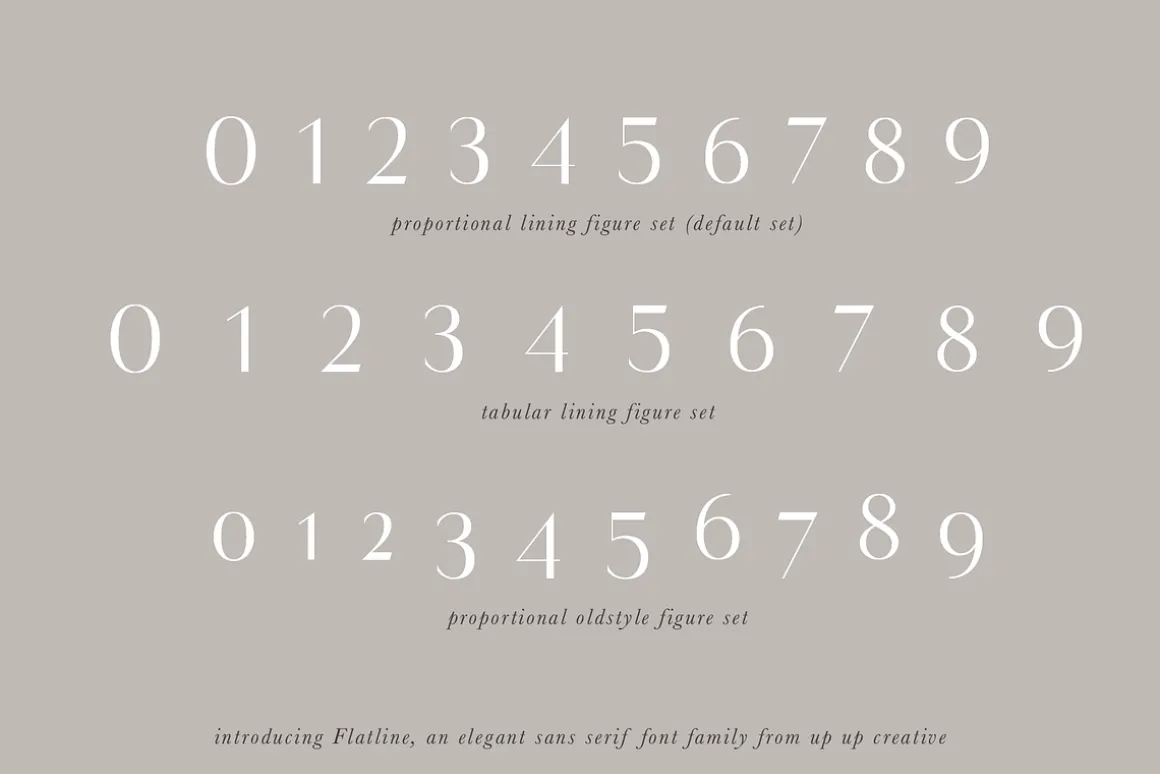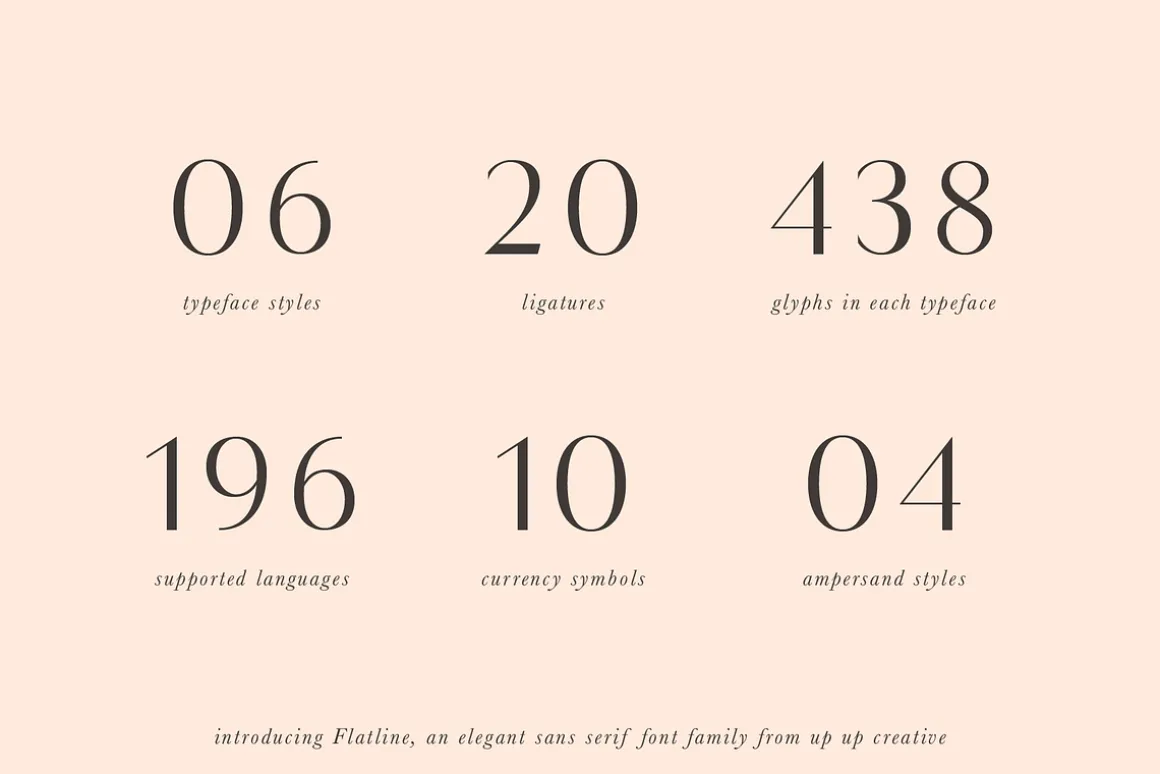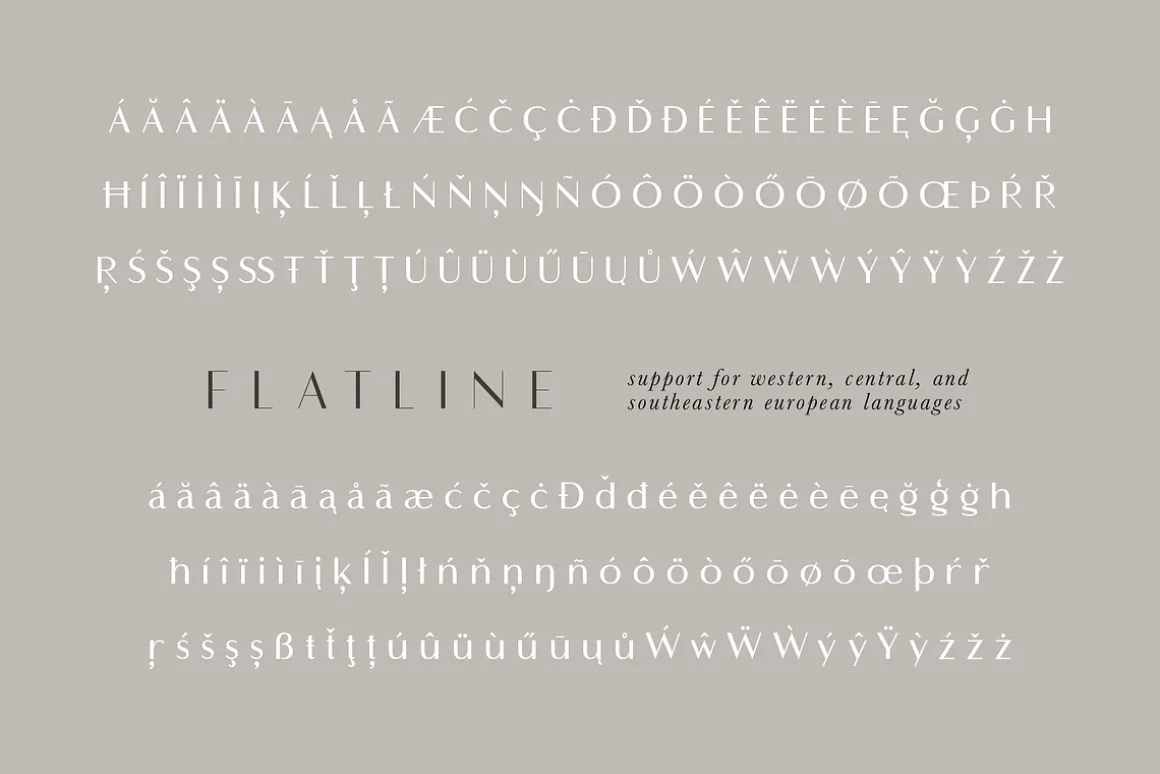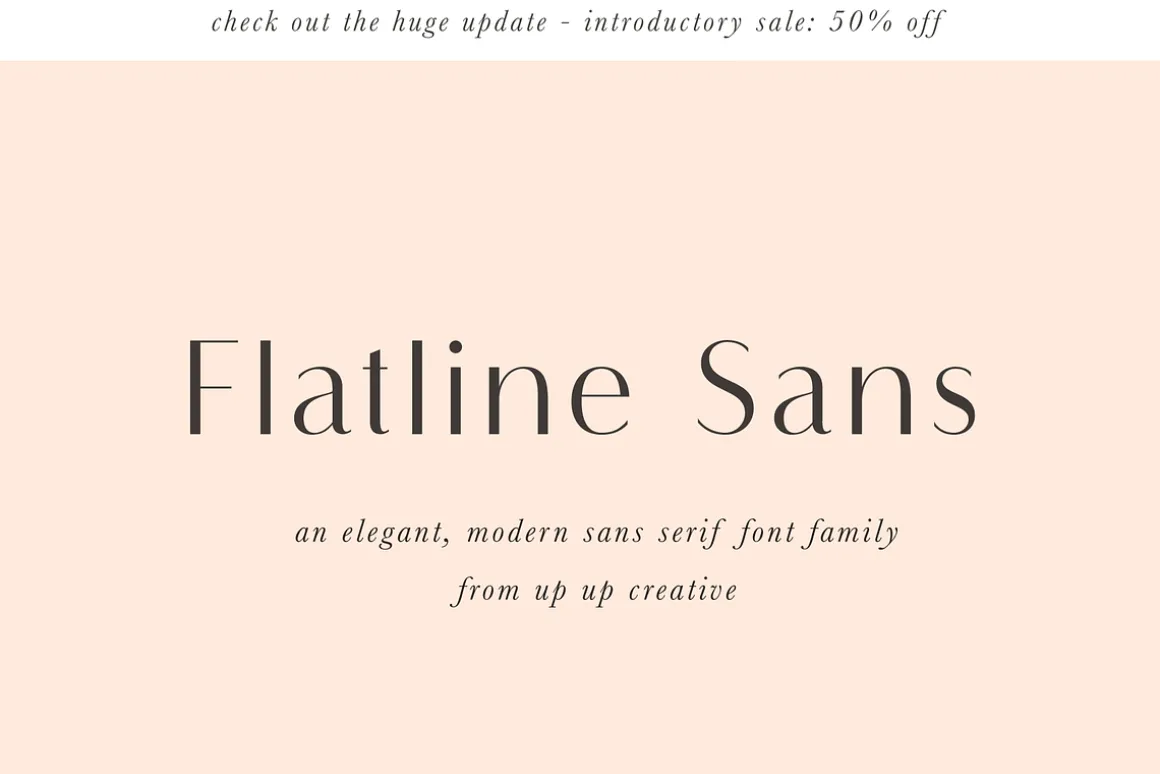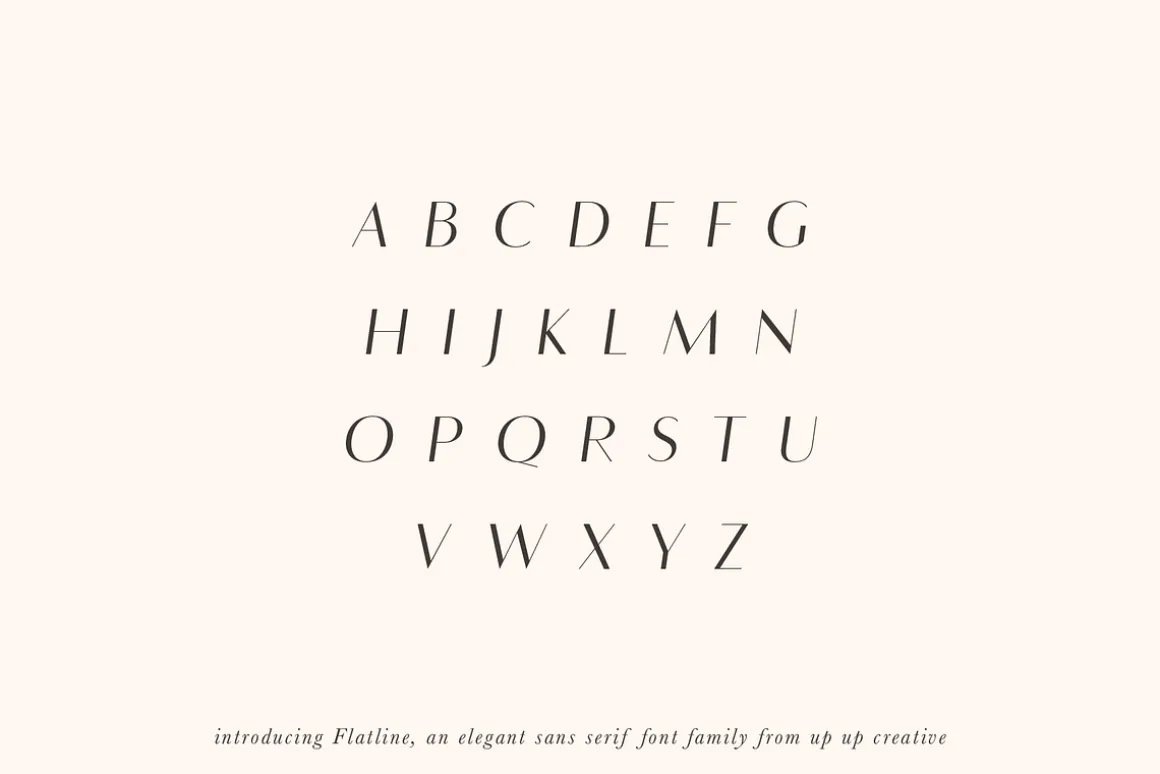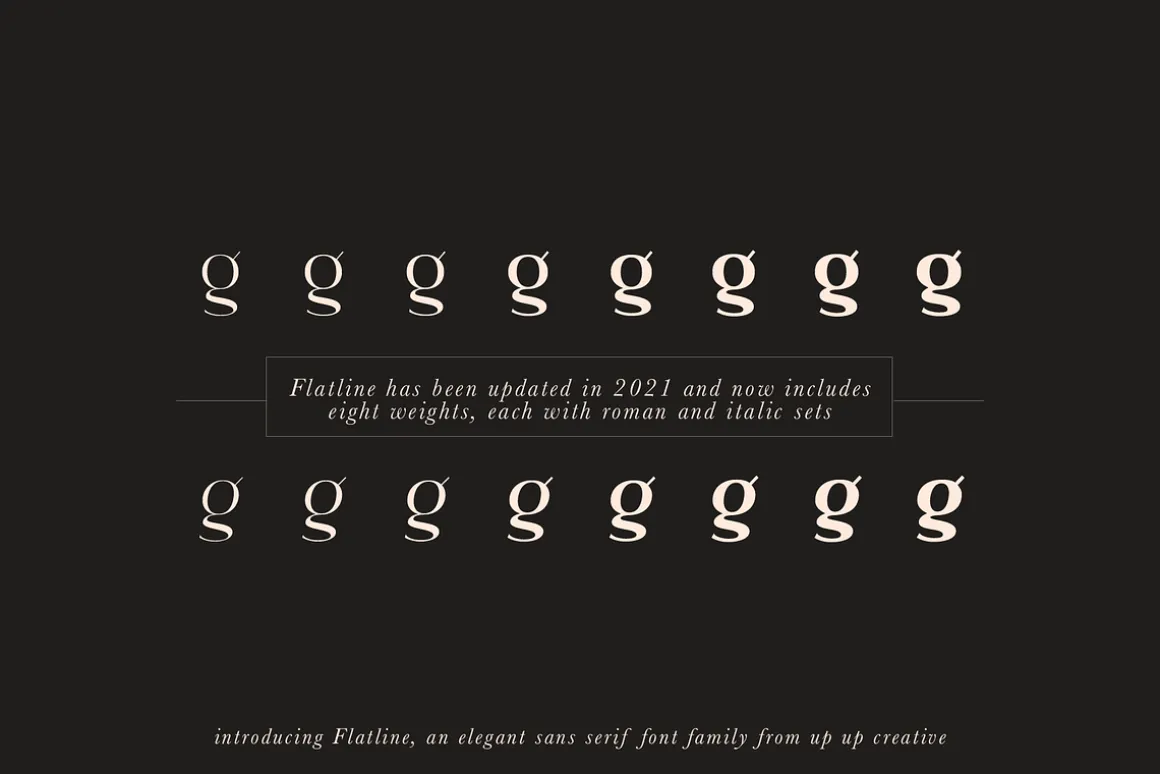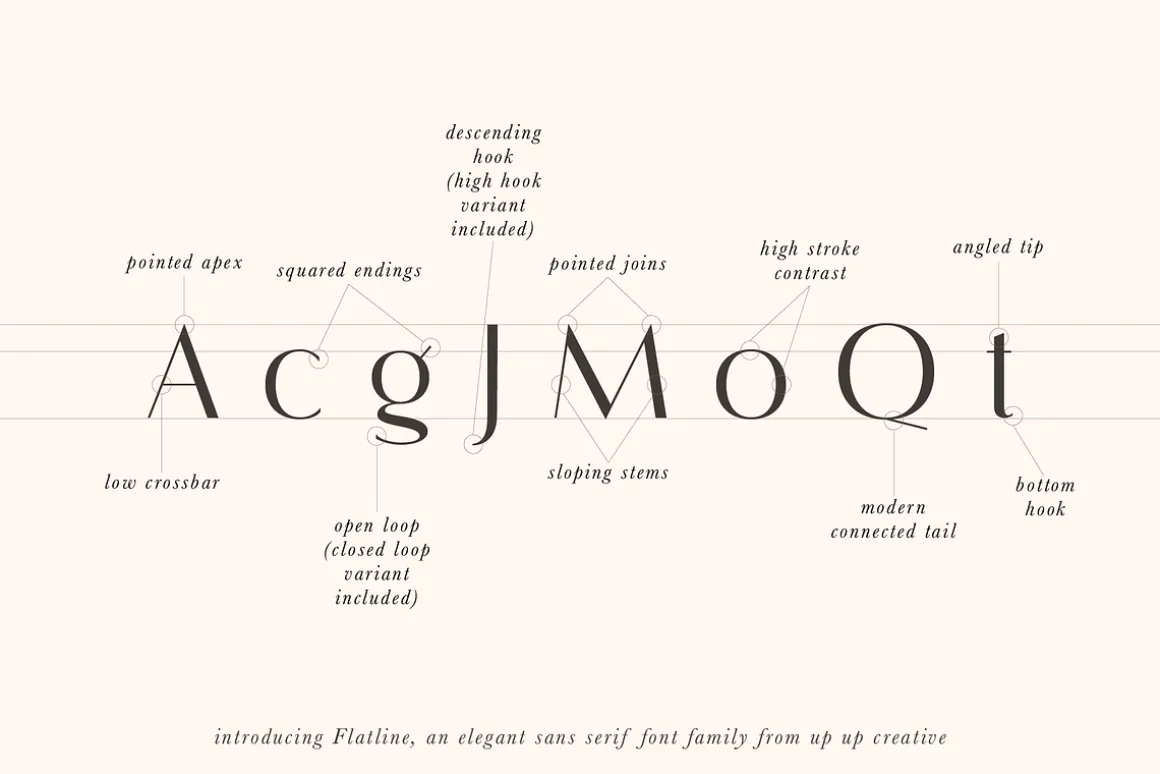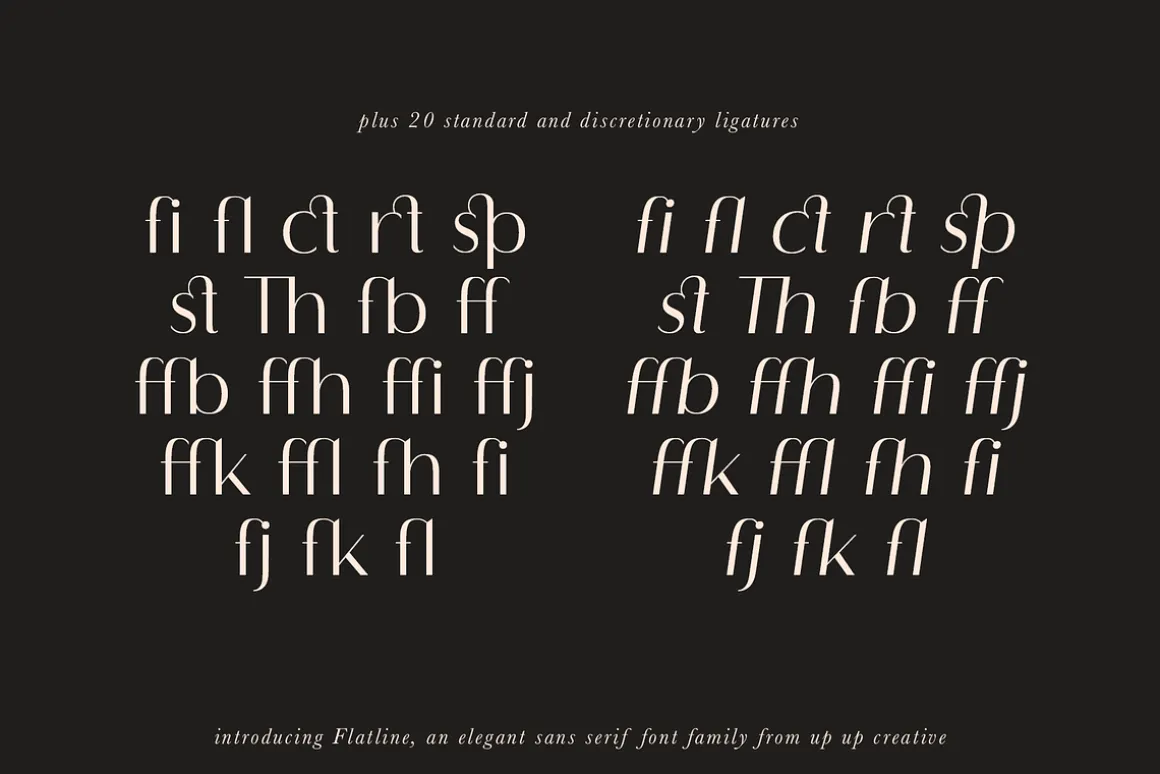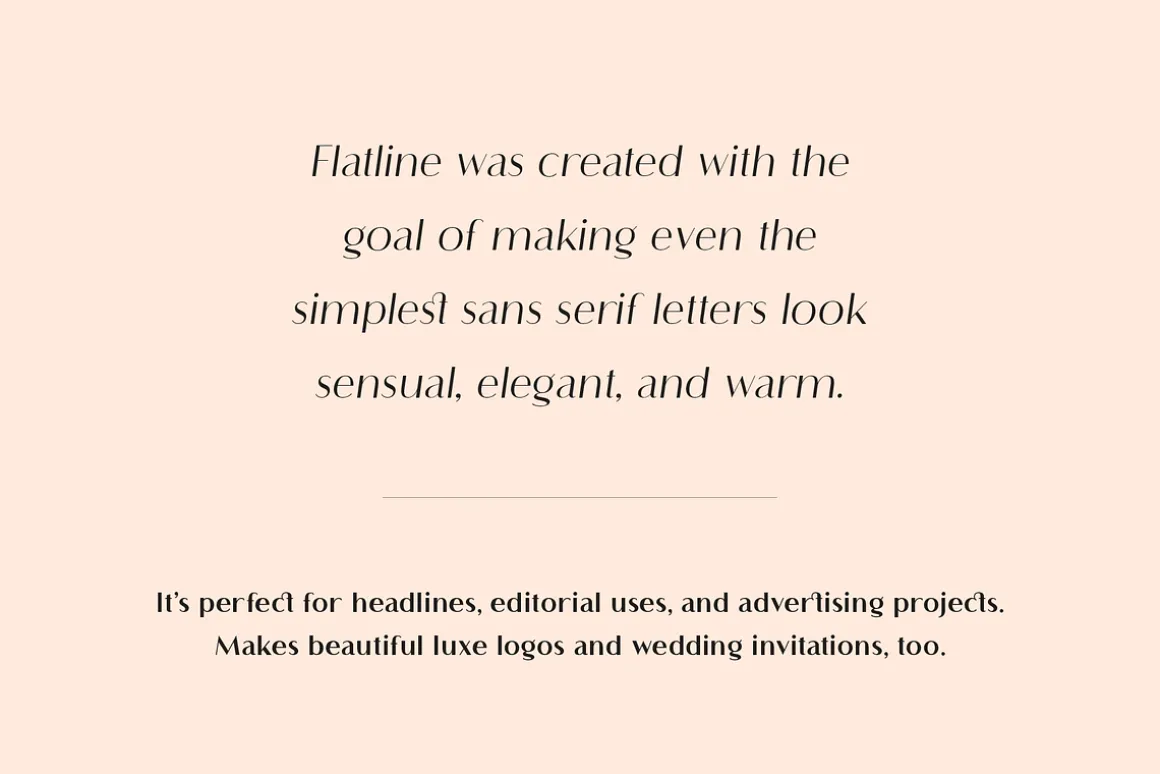
Flatline is one of our favorite and most popular fonts, and in 2021, we’ve made a HUGE update (which includes five new weights). That means there are EIGHT weights total, each in regular and italic sets, giving you sixteen fonts with this complete family.
Flatline is an elegant, modern sans serif font family. Meticulously drawn with high contrast between thick and thin strokes with the goal of making even the simplest sans serif letters look sensual, elegant, and warm. It’s perfect for headlines, editorial uses, and advertising projects. Makes beautiful luxe logos and wedding invitations, too.
Flatline includes sixteen styles (eight weights each in both roman and italic), each of which includes nearly 500 glyphs. OpenType features include standard and discretionary ligatures, a small number of character variants, three figure sets, four ampersand styles, and multilingual support (including multiple currency symbols).